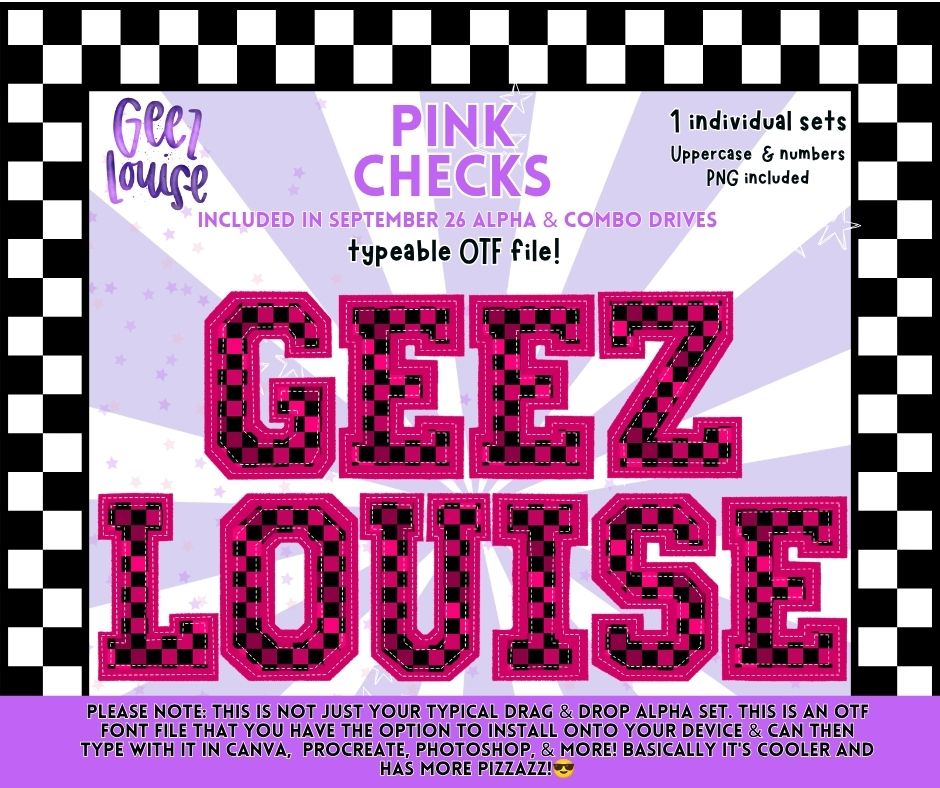
Pink Checks OTF Alpha | Pink & Black Checkered Varsity Font | Uppercase Letters & Numbers
Hot pink + black checks? YES. 💗🖤🏁
Pink Checks is a bold varsity-style alpha featuring a bright pink and black checkered fill, layered pink detailing, and stitched-style accents. And because placing letters one at a time is for people with more patience than us 😂, this set also includes a typeable OTF font!
✨ Perfect for sports, school spirit, mascots, team designs, cheer, shirts, sublimation projects & more